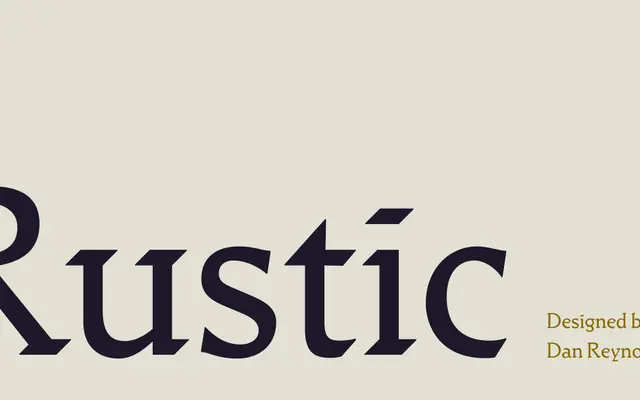
A five-weight display family from Indian Type Foundry, ranging from Regular to Heavy for headline and poster applications.
Five upright weights run from Regular through to Heavy, giving designers a compact but practical range for display settings. The family carries no italic or condensed cuts, keeping the focus squarely on weight contrast for headlines and short text. Priced individually or as a complete set of five fonts.
The name and weight range suggest a sturdy, characterful display typeface; the page classifies it under Script and display usage categories, pointing to an expressive, headline-oriented design.